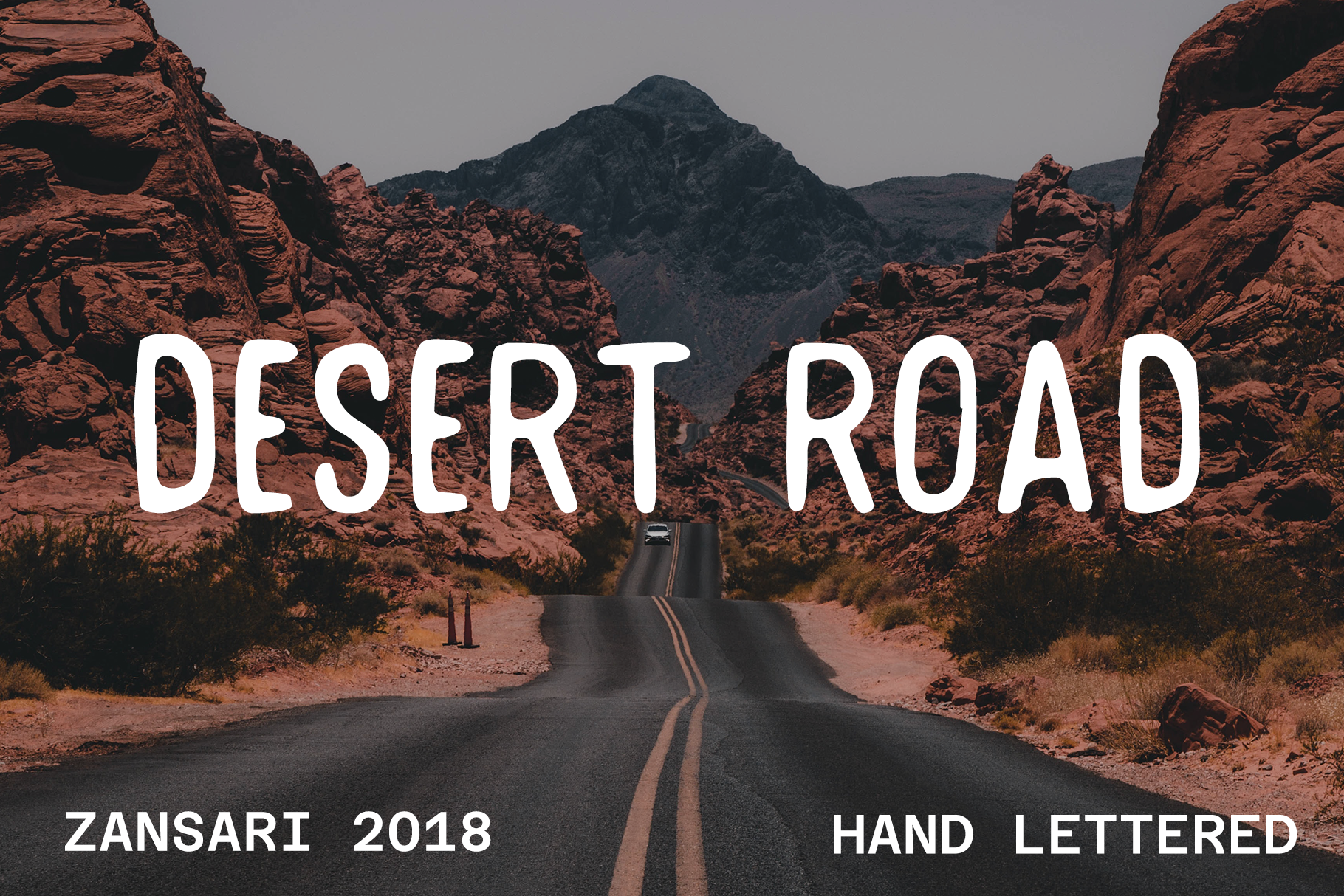
Desert Road hand-drawn font
Desert road hand drawn font is a simple all caps hand drawn font. The characters were hand sketched, then scanned and vectorised into a digital font file. Surfer Bay brush font was designed by Zansari font foundry in Auckland, New Zealand
This font would be perfect for advertisements, logos and crafts like quote posters. This has also been quite a popular blog font